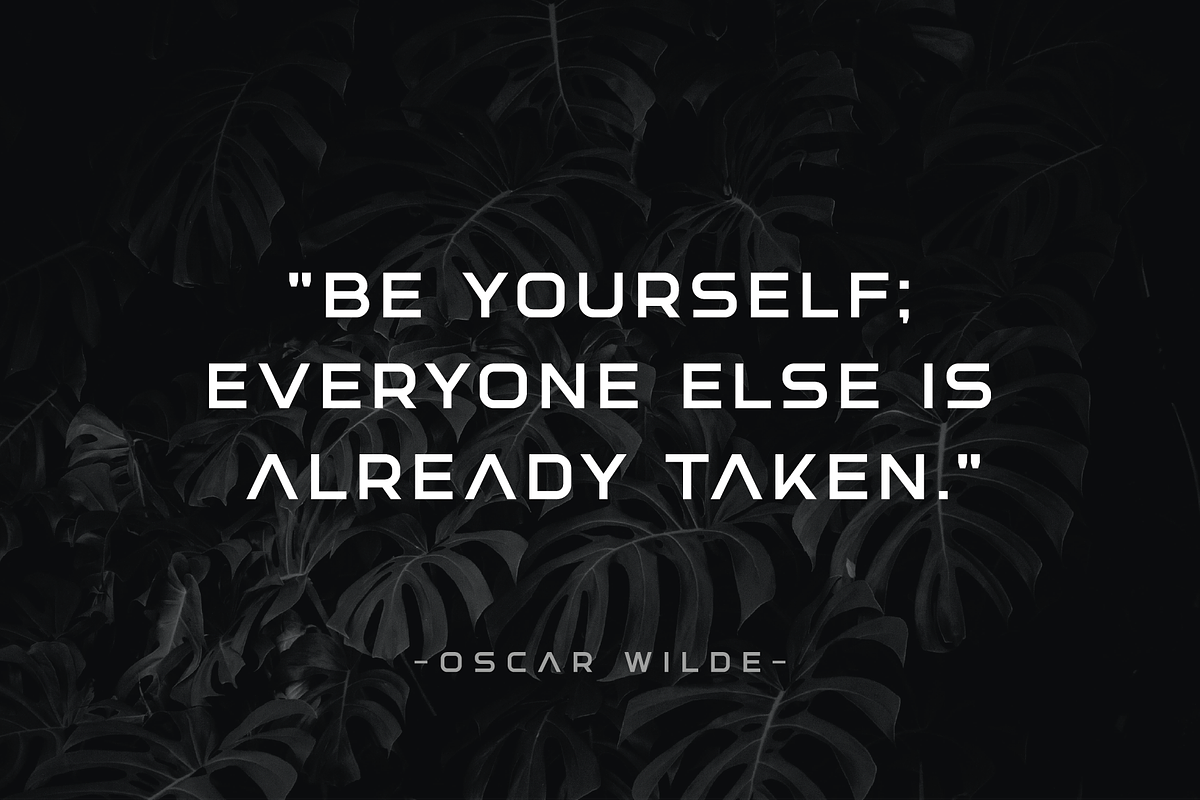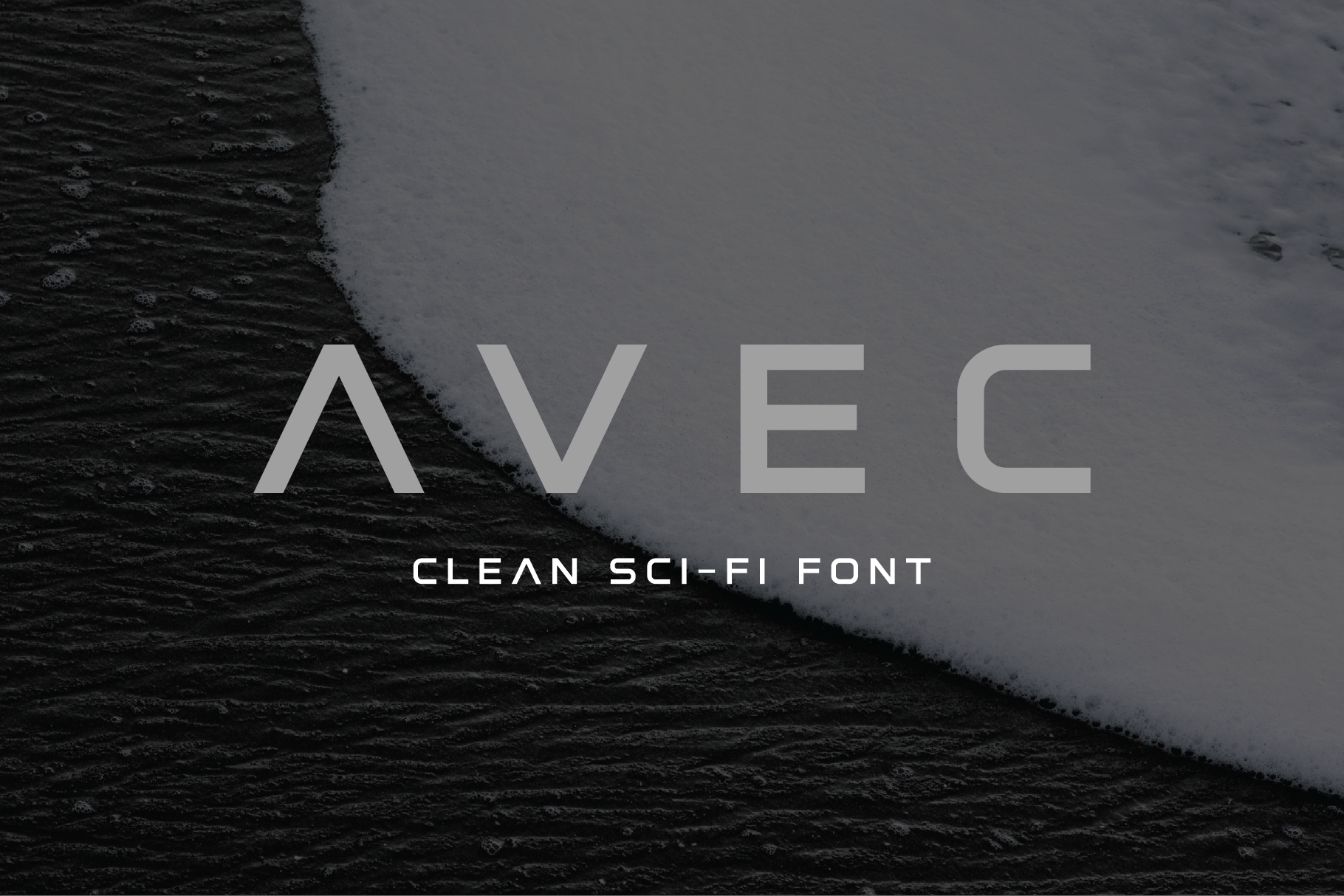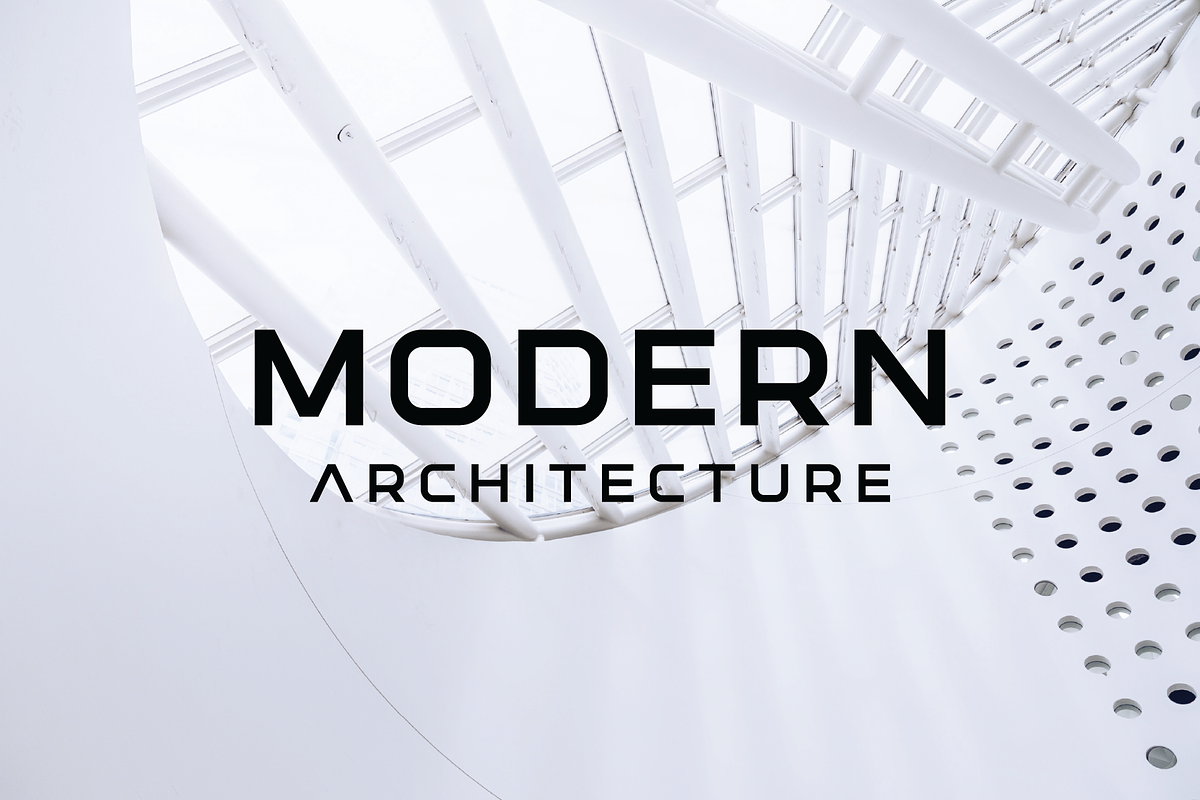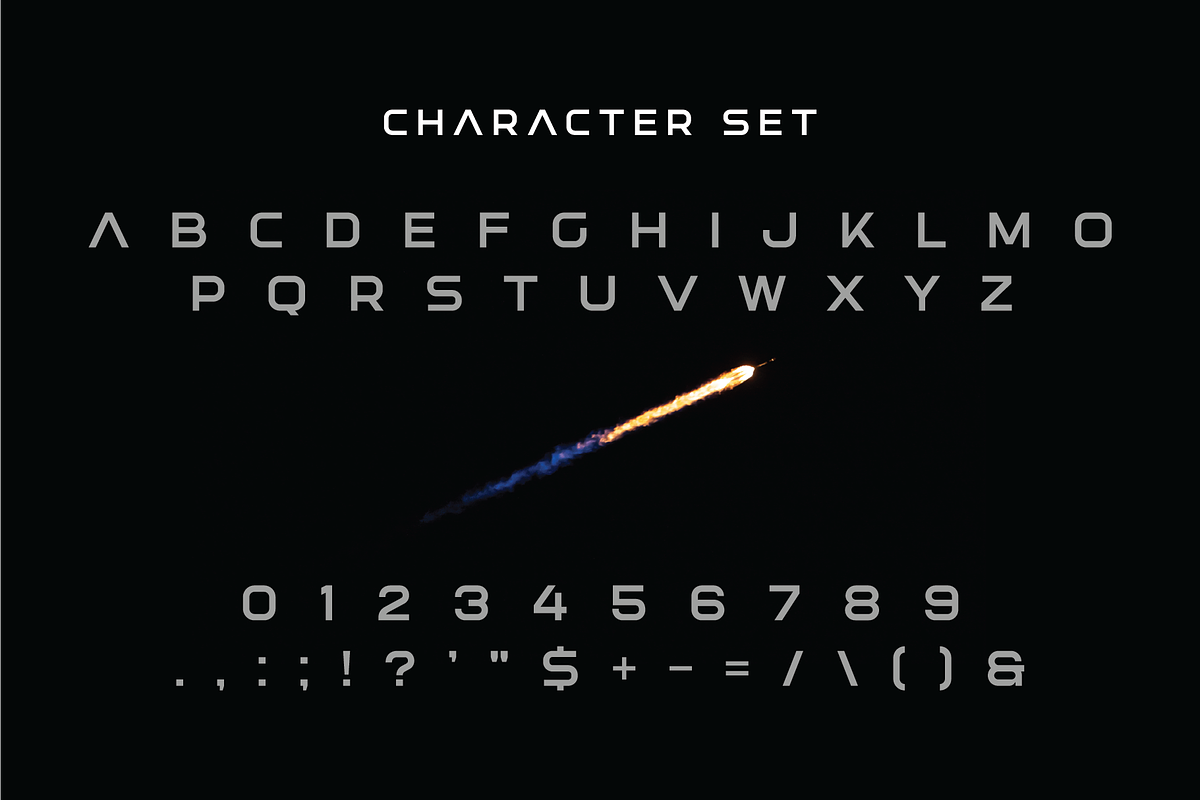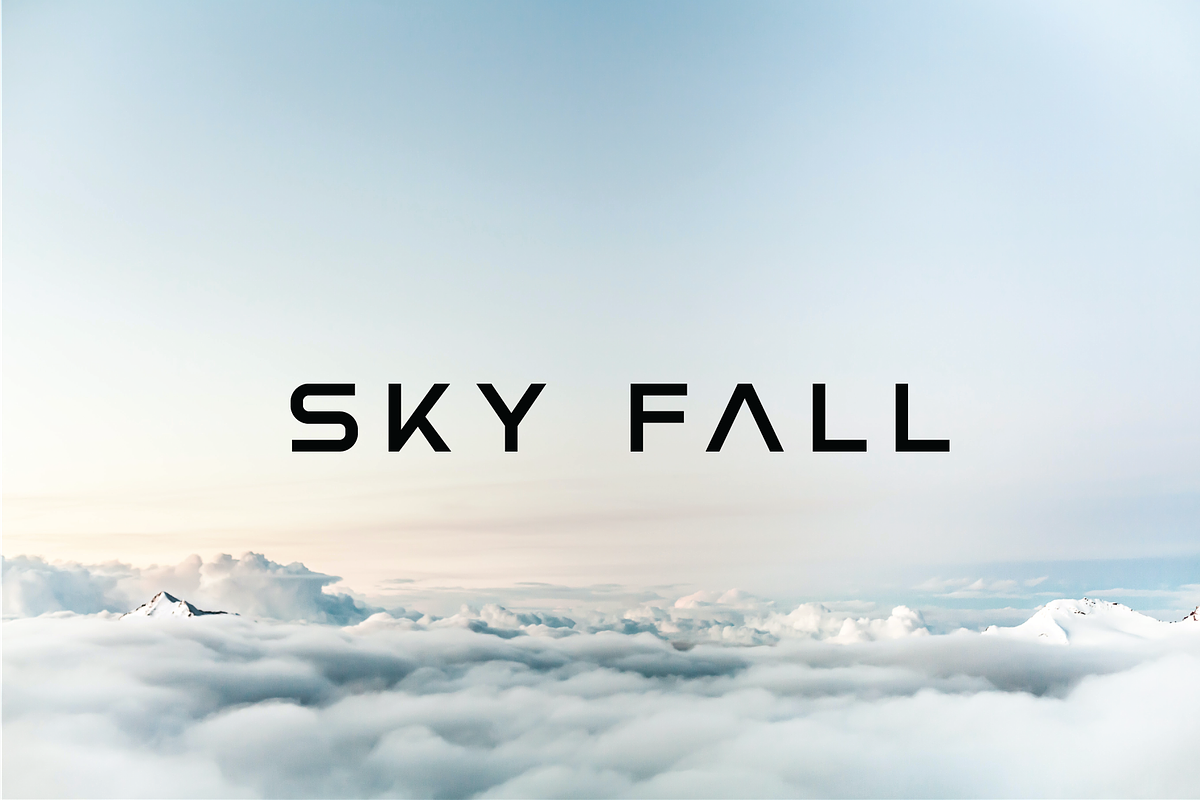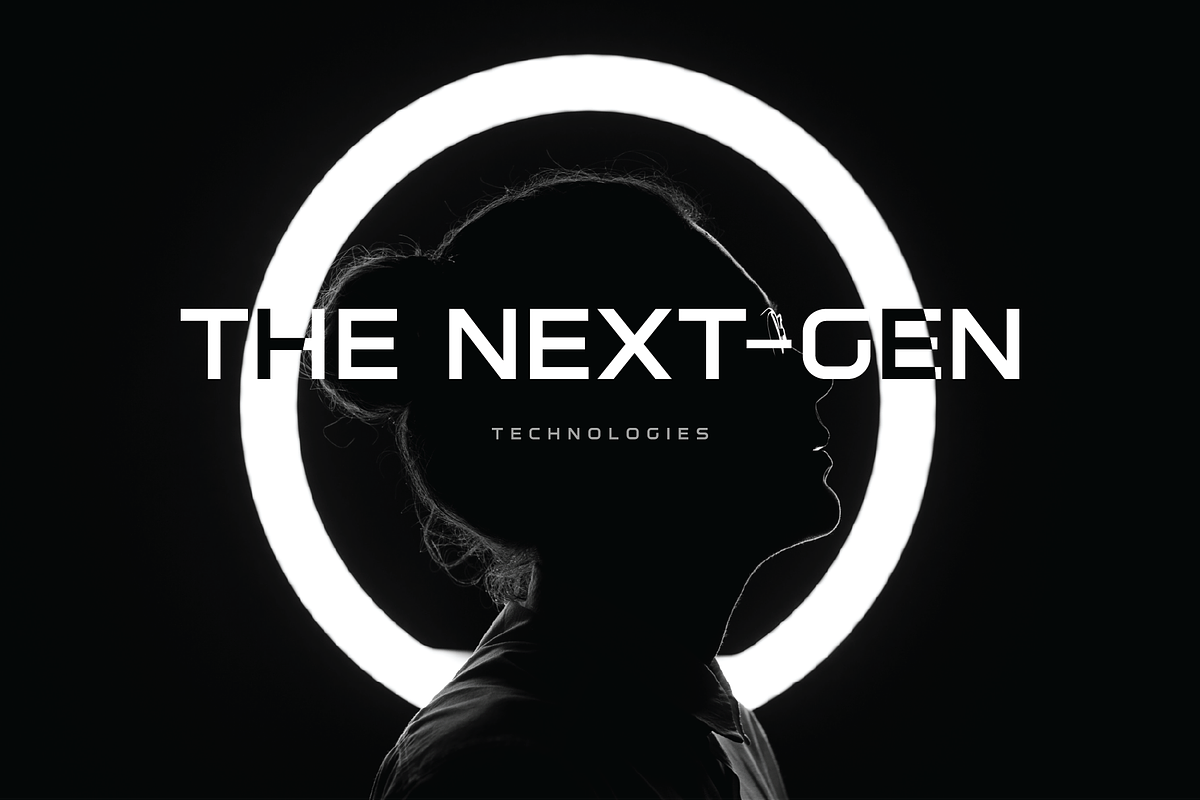
Avec Modern Clean Sci-fi Font
Avec is a modern blocky but clean sci-fi font, this font has a unique style slightly bold and futuristic appearance. This modern typeface adds a touch of elegance and boldness to your design. A perfect choice for logo designs, social media posts, banners, and so on.